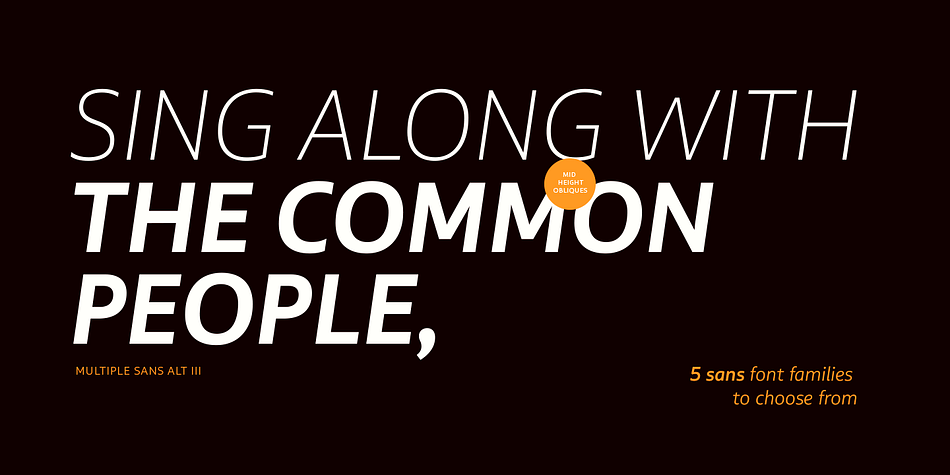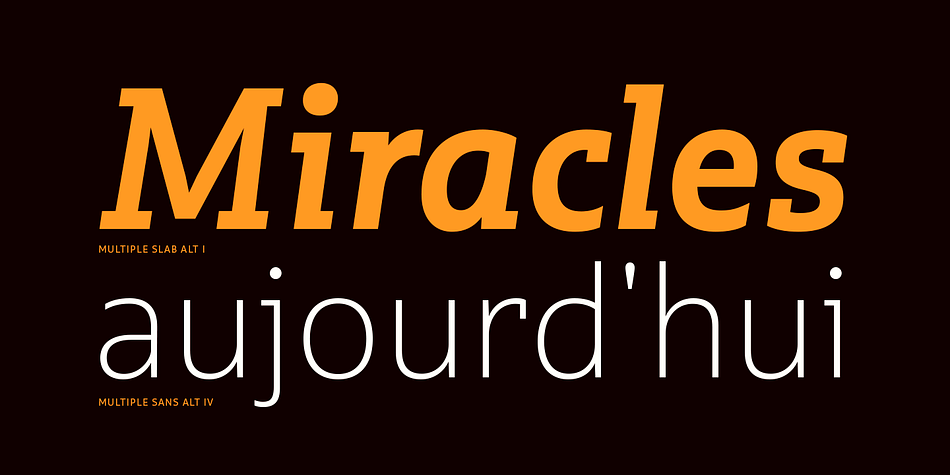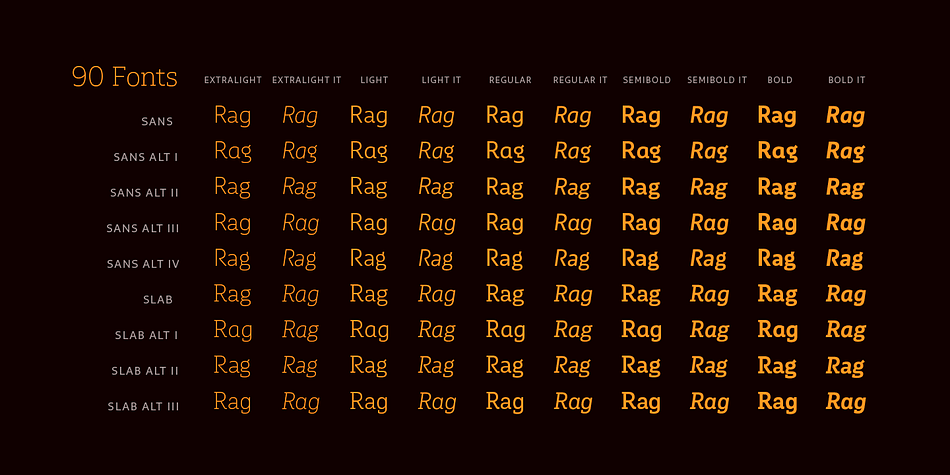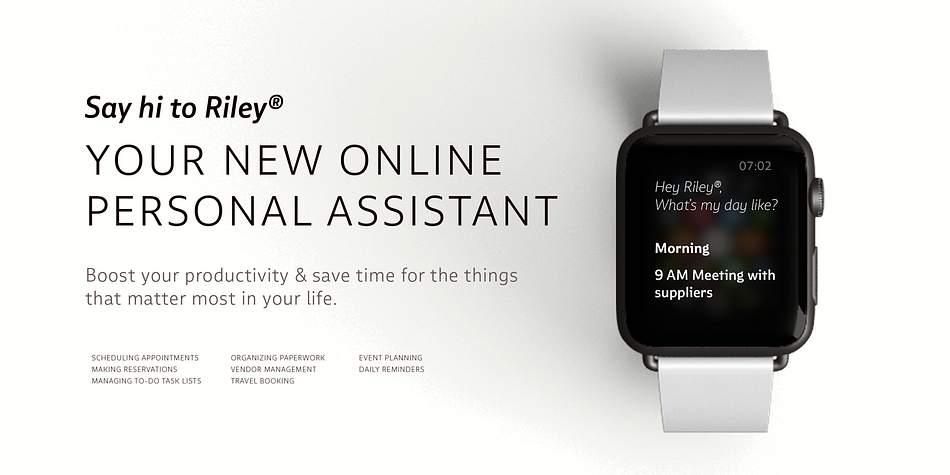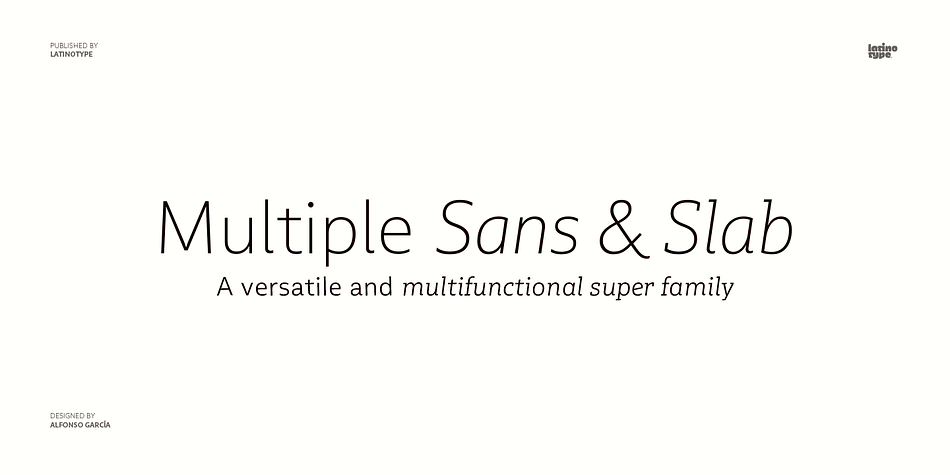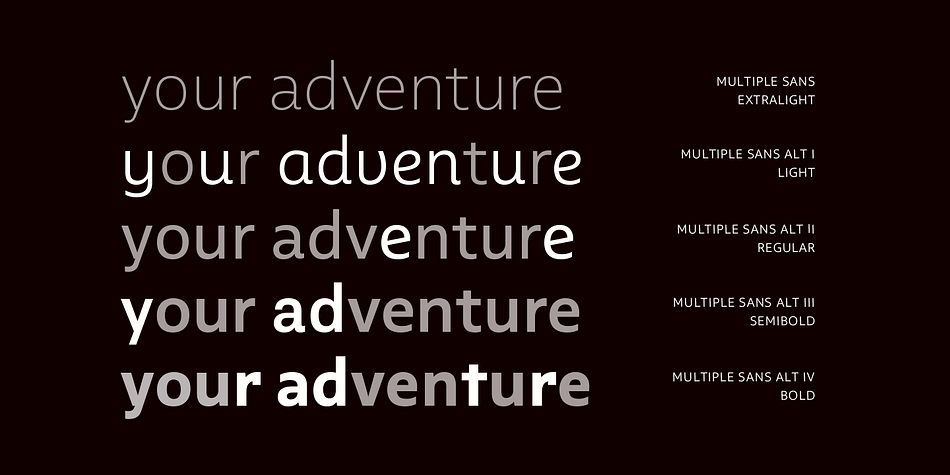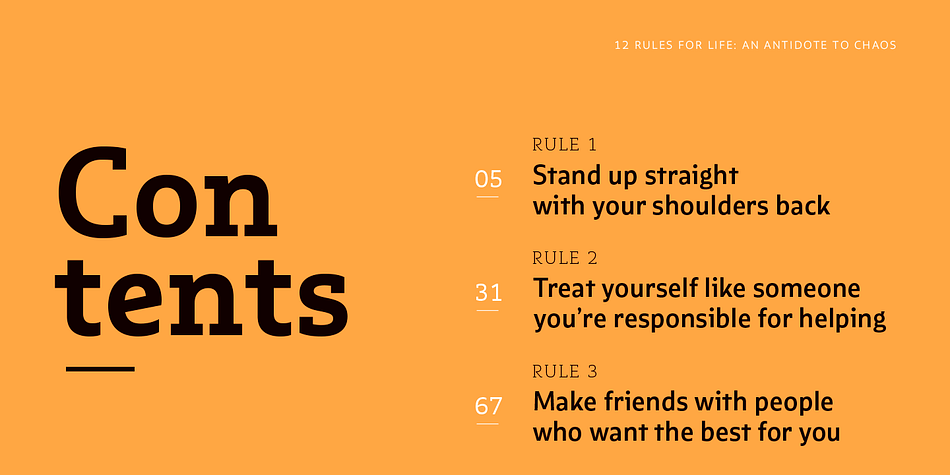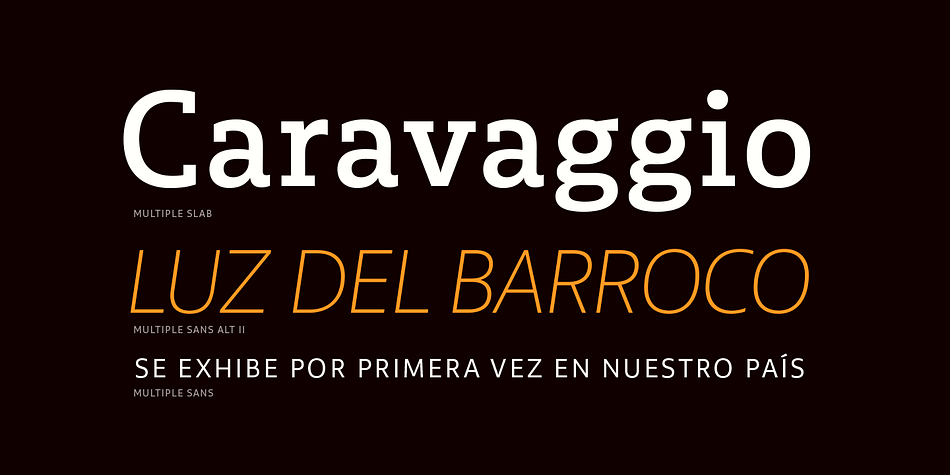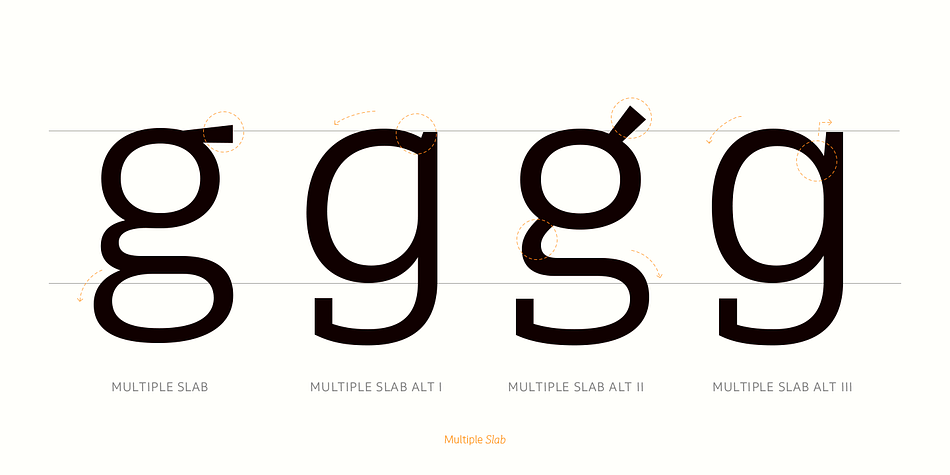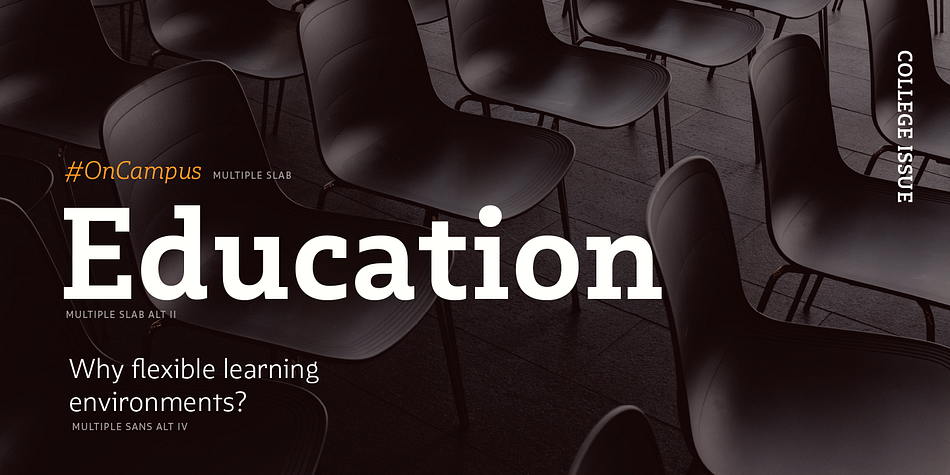
Designed by Alfonso García, Multiple is a sans serif and slab serif font family. This typeface has ninety styles and was published by Latinotype.
As its name suggests, Multiple is a family with multiple font styles. The idea that sums up the concept behind the typeface is workhorse—the challenge was to develop a useful font fit for any scenario and suitable to any design needs: editorial design, packaging, branding, screen use, etc.
Multiple features soft, rounded shapes and large counterforms which make it well-suited for both text and display usage. The proportions are based on classic typefaces yet its design was specially created to provide a high degree of versatility.
Multiple contains different stylistic sets whose variety of glyphs provides a wide range of choices for any design project. Partly humanist and partly grotesque, Multiple comes with a number of font variants that will help you choose the style will best meet your needs. The font also includes a serif version with the same number of variants as its sans counterpart. The sans version includes 4 stylistic sets while its slab companion comes with 3 sets, both available as separate alt family packages (ideal for those seeking ready-to-use alternate glyph sets). These alternate characters are also available as OpenType features in the regular versions.
Multiple comes in 5 weights—ranging from Extra Light to Bold—with matching italics, and contains a 395-character set that supports 207 different languages.
Multiple: one font, multiple faces.
Styles | Sans Serif, Slab Serif |
Designer | Alfonso García |